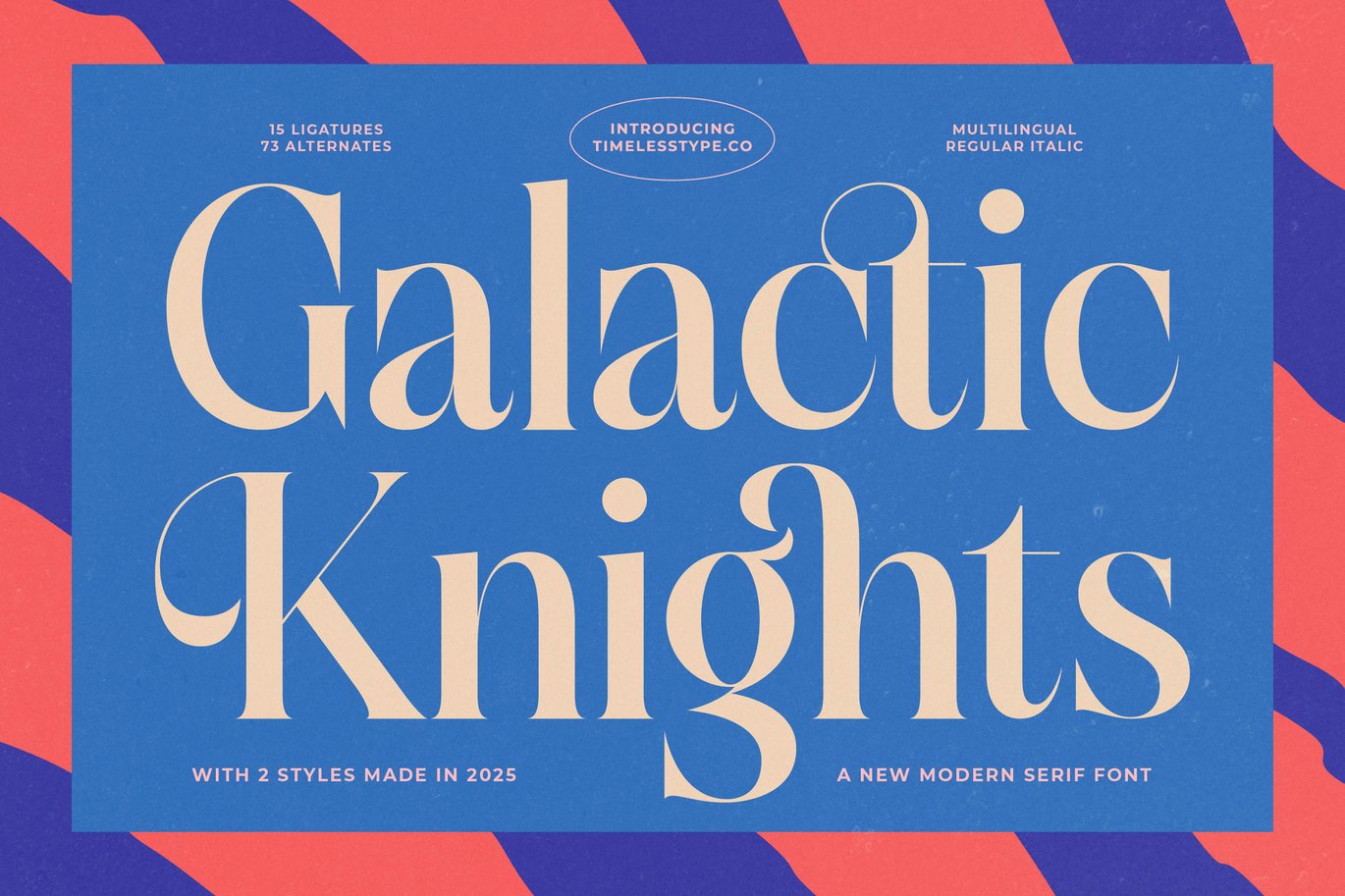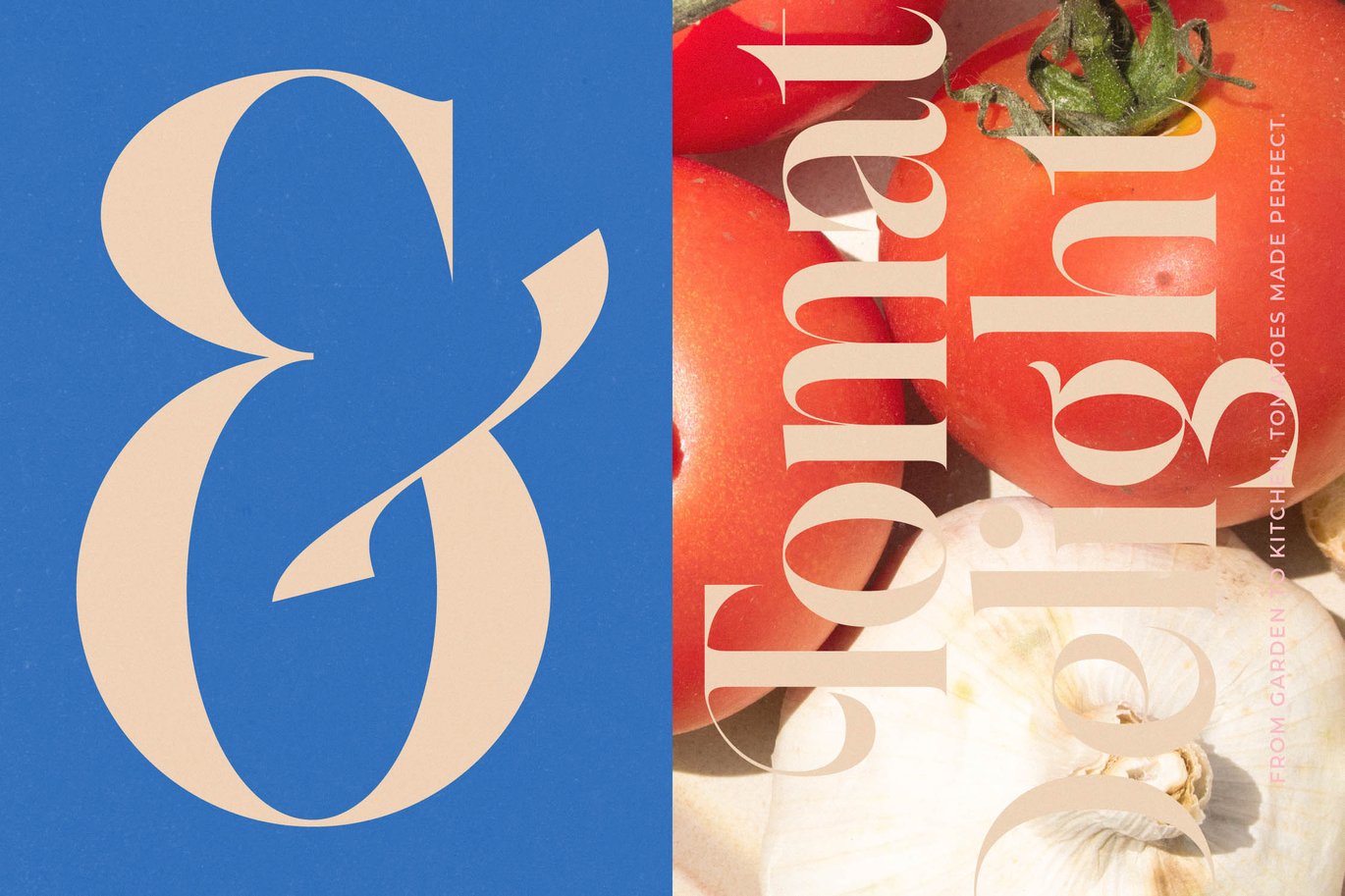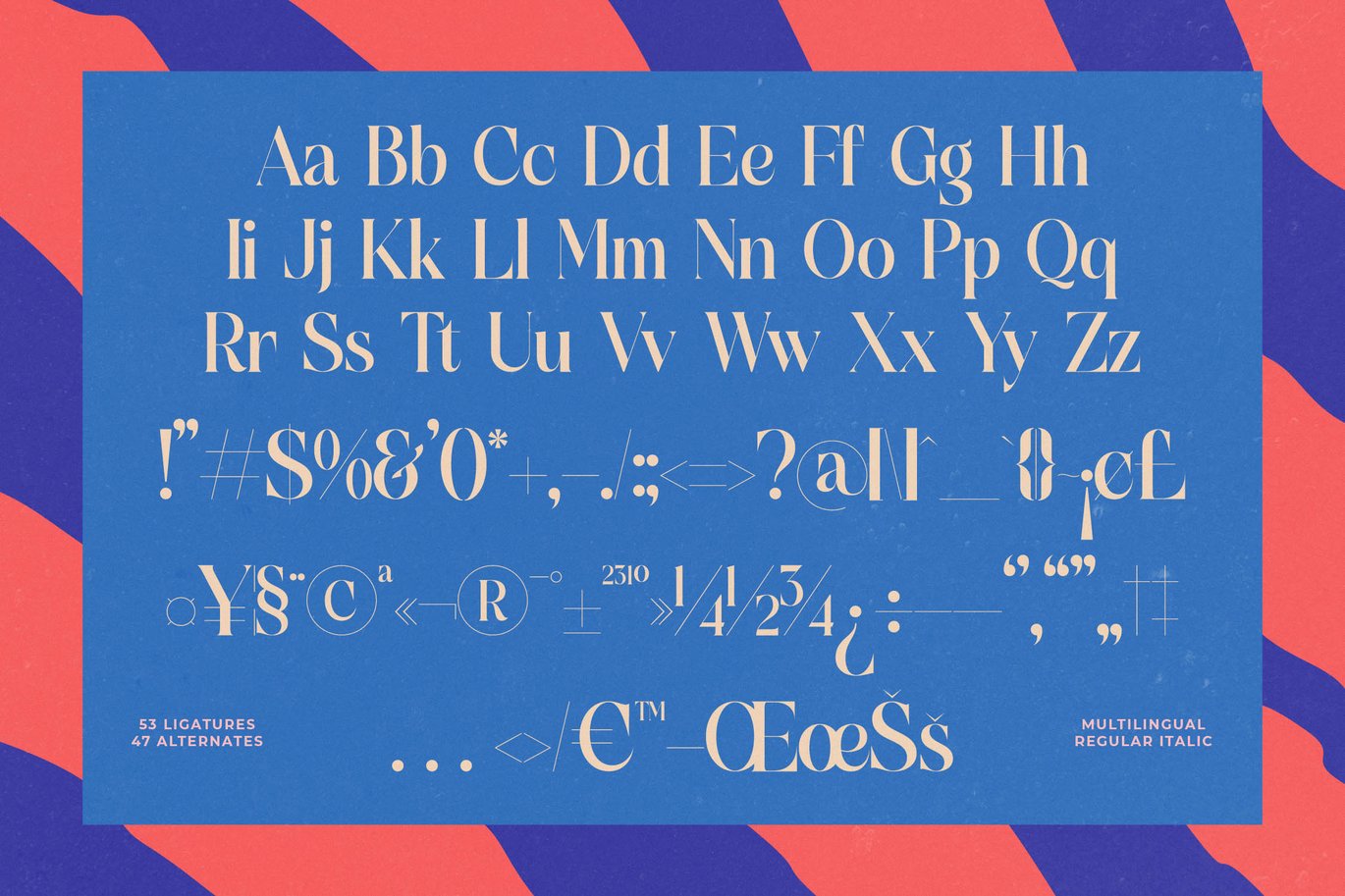
Galactic Knights – Modern Serif Font
Galactic Knights – Modern Serif Font is a versatile typeface ideal for various projects, including logos, branding, posters, blog headers, advertisements. The free version includes a full set of uppercase and lowercase letters, available in OTF format.